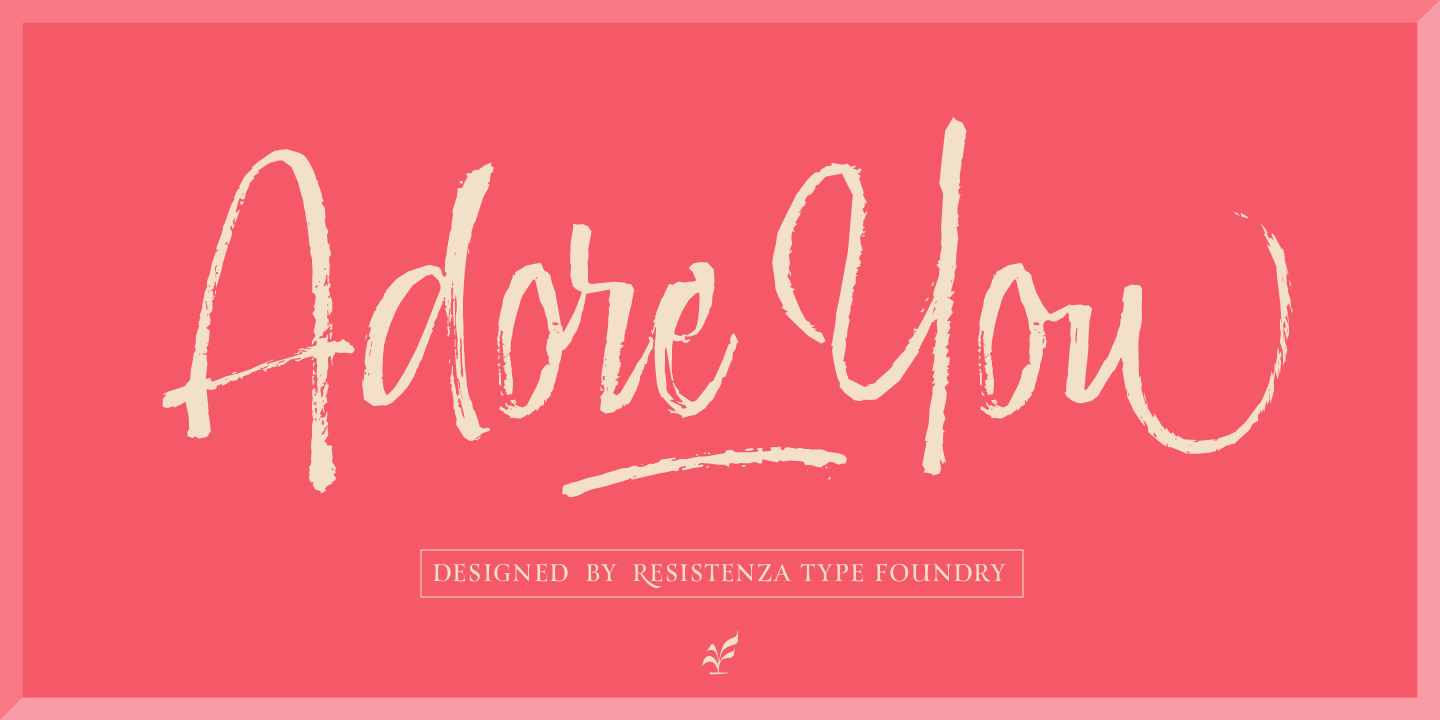
Adore You Font is perfect for romantic wedding invitations, love letter designs, Valentine's Day promotions, beauty brand packaging, fashion boutique branding, greeting card designs, romantic poetry books, and elegant feminine product marketing campaigns.
Adore You Font is exciting because it captures the essence of romance and elegance with its flowing, graceful letterforms that seem to dance across the page. The font's delicate curves and sophisticated flourishes create an intimate, heartfelt atmosphere that instantly connects with audiences seeking beauty, love, and emotional expression in their design projects.
The Adore You Font family includes multiple romantic variations: Regular, Light, Bold, Script, Ornamental, and Decorative versions. Each style maintains the font's signature romantic charm while offering designers various levels of formality and decorative elements to perfectly match their creative vision and project requirements.
This enchanting typeface brings romance and sophistication to every design project. Whether you're creating wedding stationery, beauty campaigns, or luxury brand materials, Adore You Font Free Download delivers unparalleled elegance and emotional appeal. The font's carefully crafted letterforms feature subtle swashes and delicate details that add a touch of luxury without overwhelming the message. Designers love its ability to convey intimacy, femininity, and heartfelt emotion across various applications. The complete character set includes special ligatures and decorative elements that enhance the romantic aesthetic. With its timeless beauty and versatile styling options, Adore You Font transforms ordinary text into captivating visual poetry that speaks directly to the heart, making it the perfect choice for brands and projects celebrating love, beauty, and human connection.